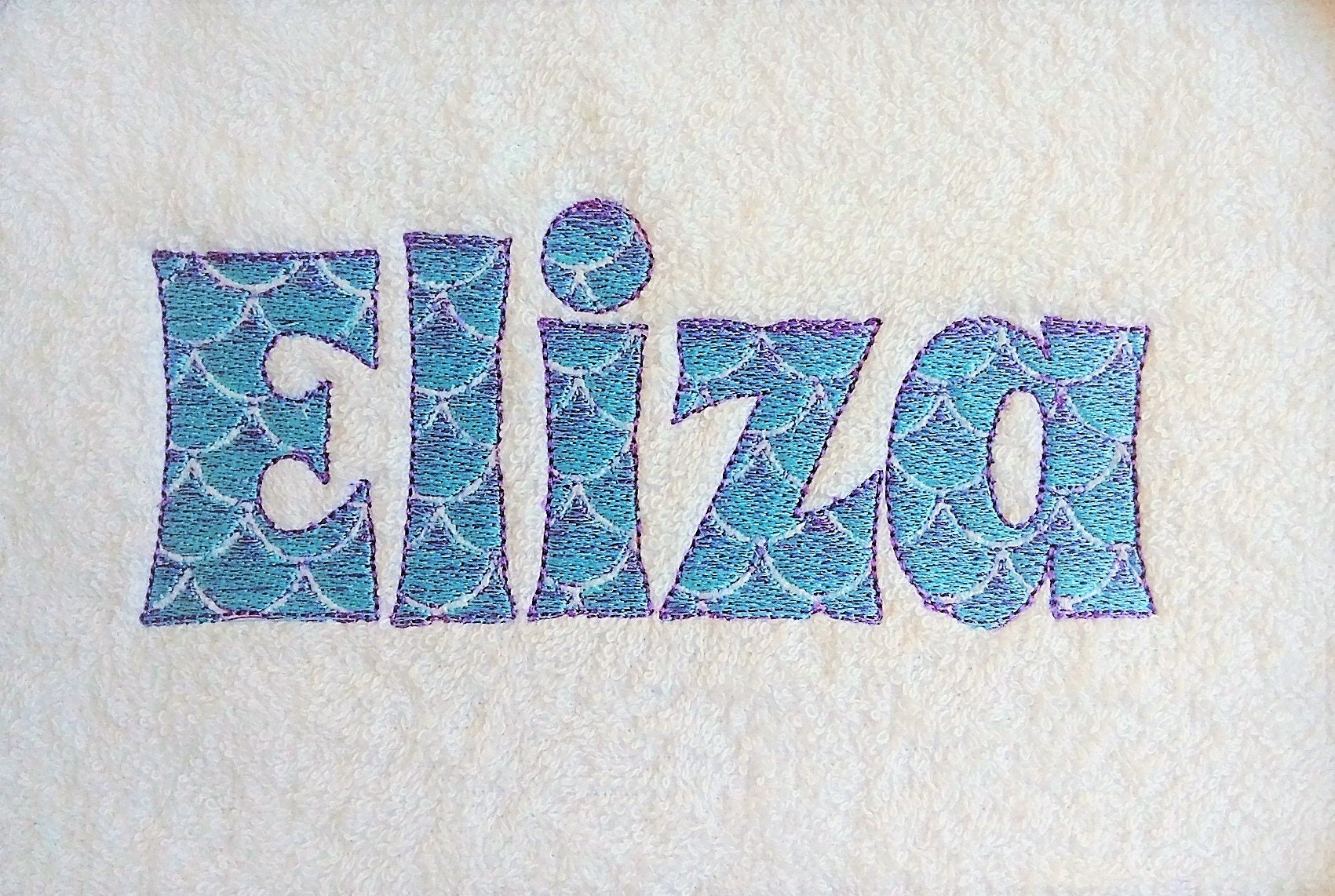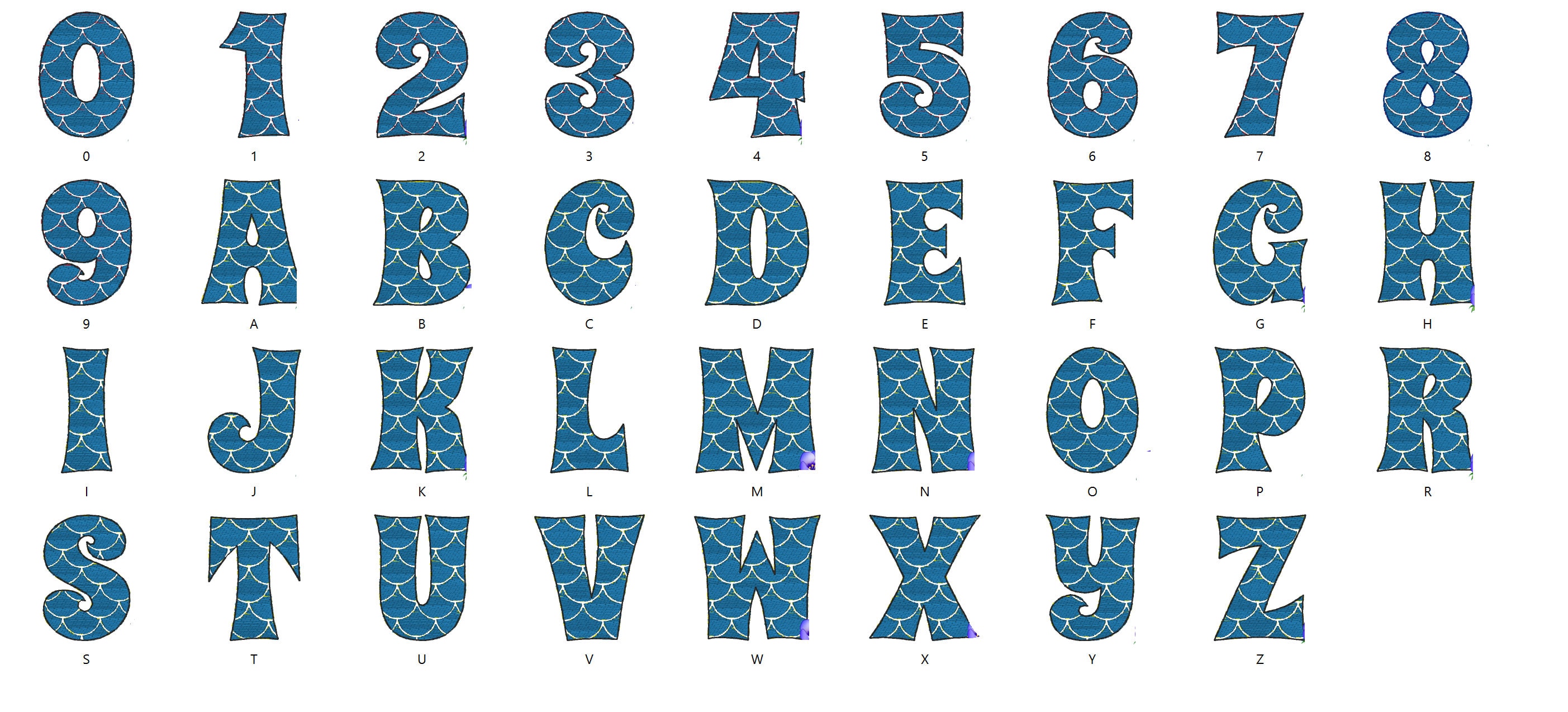
Iridescent 2 Color Mermaid Monogram FONT alphabet Embroidery designs assorted sizes awesome mermaid tail embroidery font alphabet
The letters are stitched from usual threads, just used two colors to make nice Iridescent effect, just as should be on mermaid tails.
No special thread required. The pattern creates this amazing effect all by itself. Iridescent comes thanks to the design, it has 2 colors. while stitching on one side of letter it stitches more with one color and on other side stitches with opposite color.